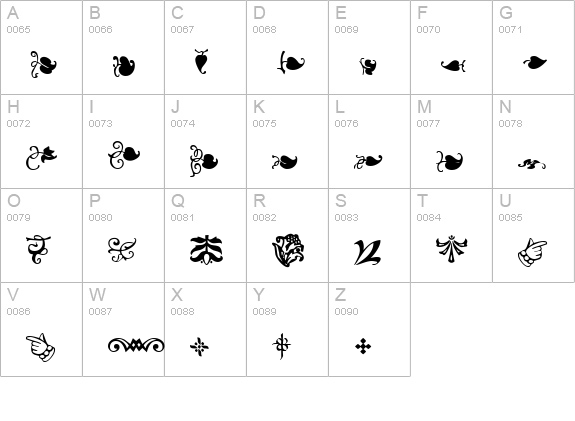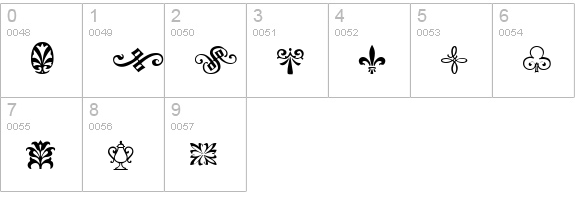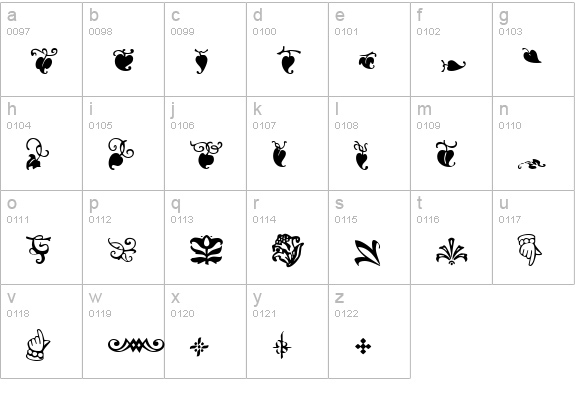
Gilde Sorts font is a unique and stylish typeface that is perfect for adding a touch of sophistication to your design projects. This elegant font features intricate details and a classic feel that will make your text stand out. With its ornate design and vintage charm, Gilde Sorts font is sure to make a statement. Best of all, Gilde Sorts font is completely free to download at FontsMarket.com. You can easily add this exquisite font to your collection and use it in a variety of creative projects without any cost. Whether you're designing invitations, posters, or logos, Gilde Sorts font will elevate your work to the next level. Don't miss out on this fantastic opportunity to enhance your designs with the timeless beauty of Gilde Sorts font.